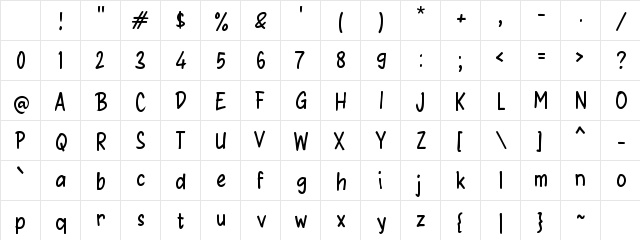
Complete Zabonkaz Regular glyph index. Displaying only characters natively supported by Zabonkaz Regular font.
Zabonkaz is a composed and adaptable typeface that performs quietly and consistently across a wide range of design contexts.